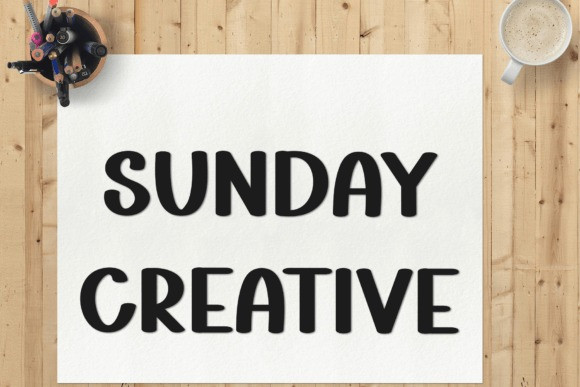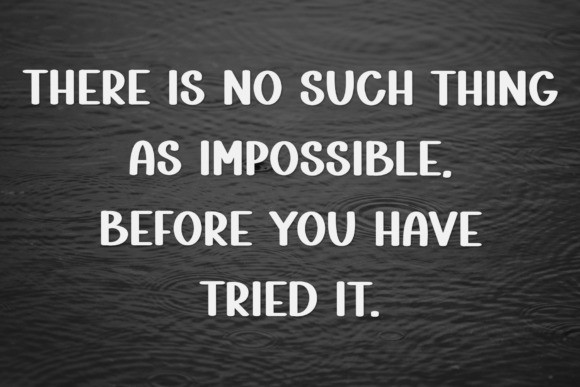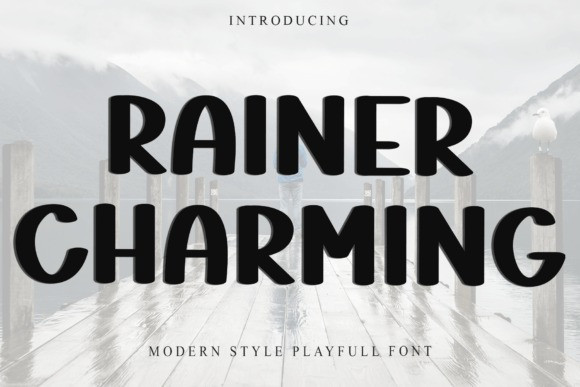
Rainer Charming Font
Rainer Charming Font is a sweet and friendly sans serif font. Its natural and unique style makes it incredibly fitting to a large pool of designs. The only limit is your imagination!